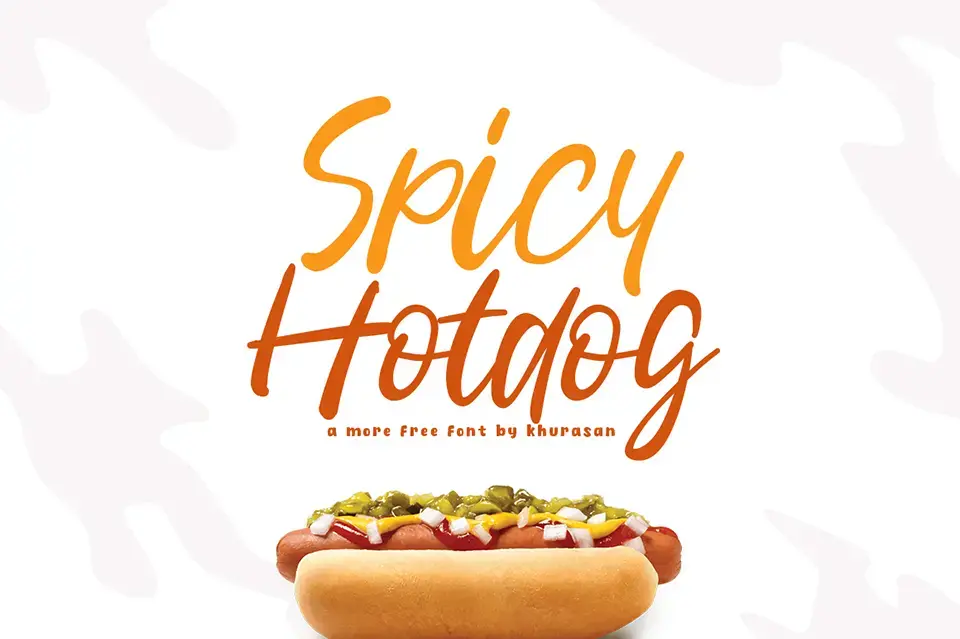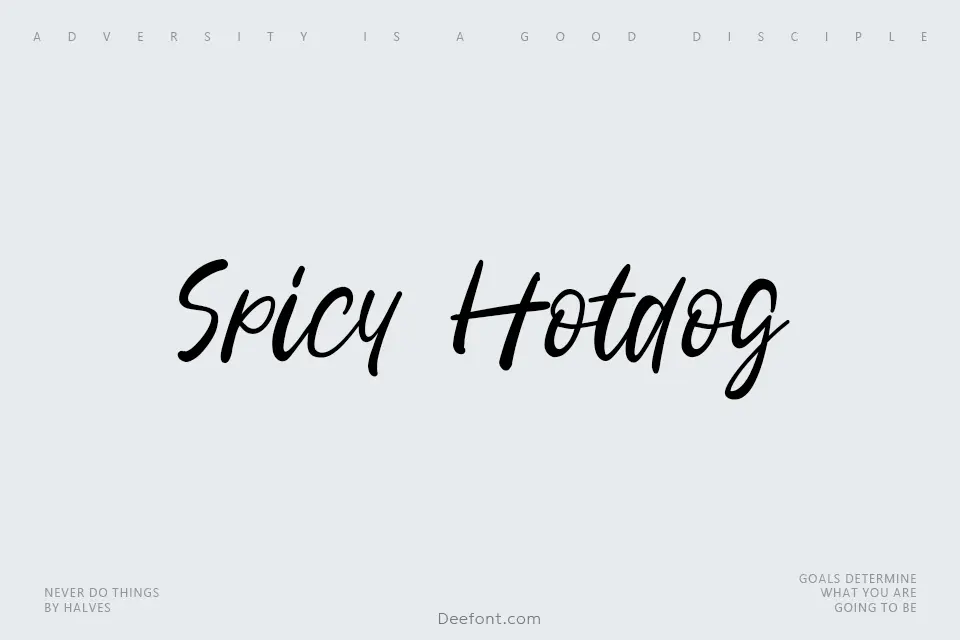
Spicy Hotdog Font
Spicy Hotdog is a whimsical, semi-light handwritten script font radiating warmth and playfulness. Its imperfect, organic strokes and quirky character shapes make it ideal for posters, logos, magazine headers, product labels, and branding projects. The font’s spontaneous energy works perfectly for invitations, greeting cards, and display typography that demands attention. With distinctive curved letterforms and a carefree aesthetic, Spicy Hotdog brings personality to headlines, event promotions, and creative visual communications where personality matters most.